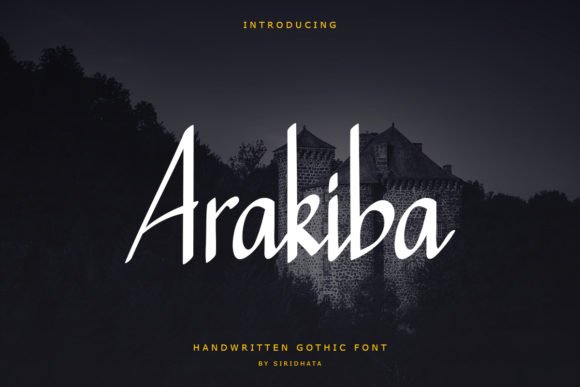
Unleash Your Creativity with Arakiba Font
Do you remember that moment when you finally found the perfect font for your project? The one that made everything fall into place, and your design came alive? For designers, it’s a feeling like no other. And today, we’re excited to introduce you to a font that will make that moment happen time and time again – Arakiba Font.
Arakiba Font is a playfully modern script with a unique, calligraphic style that’s sure to captivate your audience. Its elegant charm is perfect for anything from wedding invitations to branding materials. Whether you’re a seasoned designer or just starting out, Arakiba Font is an invaluable addition to your toolkit.
Arakiba Font Key Features
- Font Family: Arakiba is a unique and elegant script font designed to add a touch of sophistication to any design.
- Character Count: The font contains 330 characters, including uppercase and lowercase letters, punctuation, and special characters.
- Size and Resolution: The font is designed for use at medium to large font sizes (14pt – 48pt), with a recommended resolution of 300 DPI for optimal quality.
- Unique Characteristics: Arakiba features a distinctive, flowing script style with intricate connections between letters, making it perfect for creating elegant and sophisticated designs.
Arakiba Font Review
As a designer, I’ve had the opportunity to work with a wide range of fonts, and I have to say that Arakiba is an interesting one. ✨ The font’s unique blend of modern and vintage elements catches the eye, and its versatility makes it suitable for a variety of projects.
One of the things I like about Arakiba is its excellent legibility, especially in smaller font sizes. The font’s x-height is well-balanced, making it easy to read even in dense text blocks. ✨ The font also has a great range of weights, from light to bold, which allows for a lot of flexibility in terms of typography.
While Arakiba is a solid font, there are some limitations to consider.
- ⚠️ The font’s design can be a bit over-the-top for some projects, making it difficult to use in more conservative or traditional settings.
- ⚠️ The font’s bold weights can be a bit too bold, making them difficult to use in situations where a more subtle emphasis is needed.
Overall, I think Arakiba is a great font for designers who want to add some flair to their projects. While it may not be the best choice for every project, it’s definitely worth considering for those that need a unique and eye-catching font.
Some tips for getting the most out of Arakiba Font include:
– Using it for titles and headings to add a touch of elegance.
– Pairing it with other fonts for a unique and creative look.
– Experimenting with different font sizes and colors to create visual interest.
– Using it for logos, branding, and other design elements where a distinctive look is desired.
Alternatives to Arakiba Font
Montserrat is a sans-serif font that is highly legible and versatile. It’s ideal for use in digital interfaces, signage, and editorial content. Montserrat is more geometric and modern compared to Arakiba Font, which is more decorative and script-like. It’s a great choice when you need a clean and simple font for your design.
Pacifico is a beautiful script font that’s perfect for creating a warm and inviting atmosphere. It’s often used in branding, advertising, and packaging. While Pacifico shares some similarities with Arakiba Font in terms of its script-like quality, it’s more elegant and refined. Pacifico is a great choice when you need a font that exudes sophistication and luxury.
Great Vibes is a stylish and modern script font that’s perfect for creating a fun and energetic atmosphere. It’s often used in branding, advertising, and editorial content. Great Vibes is more playful and dynamic compared to Arakiba Font, which is more elegant and refined. Great Vibes is a great choice when you need a font that adds a touch of whimsy and personality to your design.